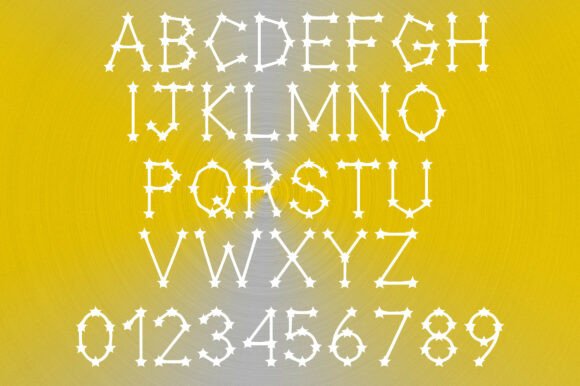
The Magic of Constella Font: A Celestial Design Dream
I still remember the design project that led me to discover the enchanting Constella Font. I was working on a festive holiday campaign for a client, and I needed a font that would capture the whimsical, starry night essence of their brand. After hours of scrolling through font libraries, I stumbled upon Constella, and it was love at first sight ✨. Its elegant, slim letterforms and star-tipped details instantly transported me to a magical world of constellations and twinkling stars.
An Honest Review of Constella Font
- ✨ Elegant and sophisticated design perfect for fantasy, feminine, festive, and high-end projects
- ✅ Light and airy feel that adds a touch of magic to any design
- 🌟 Unique star-tipped details that set it apart from other display fonts
- 💫 Highly versatile and adaptable to various design styles and themes
While Constella Font is a stunning addition to any design project, there are a few minor quirks to be aware of:
- 🤔 Limited use in body text due to its decorative nature and potential readability issues
- ⚠️ May not be suitable for very small font sizes or low-resolution displays
To take full advantage of Constella’s OpenType features, experiment with the font’s stylistic alternates and glyphs. For example, you can use the star-tipped details to add a touch of whimsy to your design.
The Designer Inspiration Behind Constella
Constella Font was inspired by the magic and mystery of the night sky. Its designer, a stargazing enthusiast, aimed to capture the essence of constellations and the celestial world in a beautiful, elegant font. The result is a font that transports you to a world of wonder and enchantment, perfect for designers looking to add a touch of magic to their projects.
Q: What type of projects is Constella Font best suited for?
A: Constella Font is perfect for fantasy, feminine, festive, and sophisticated designs, such as holiday campaigns, luxury branding, and creative projects.
Q: Is Constella Font available in different weights or styles?
A: Currently, Constella Font is available in a single weight. However, some font libraries may offer variations or similar fonts with different weights or styles.
Q: Can I use Constella Font for body text?
A: While Constella Font is beautiful, it’s primarily designed for display purposes. Its decorative nature and potential readability issues make it less suitable for body text.